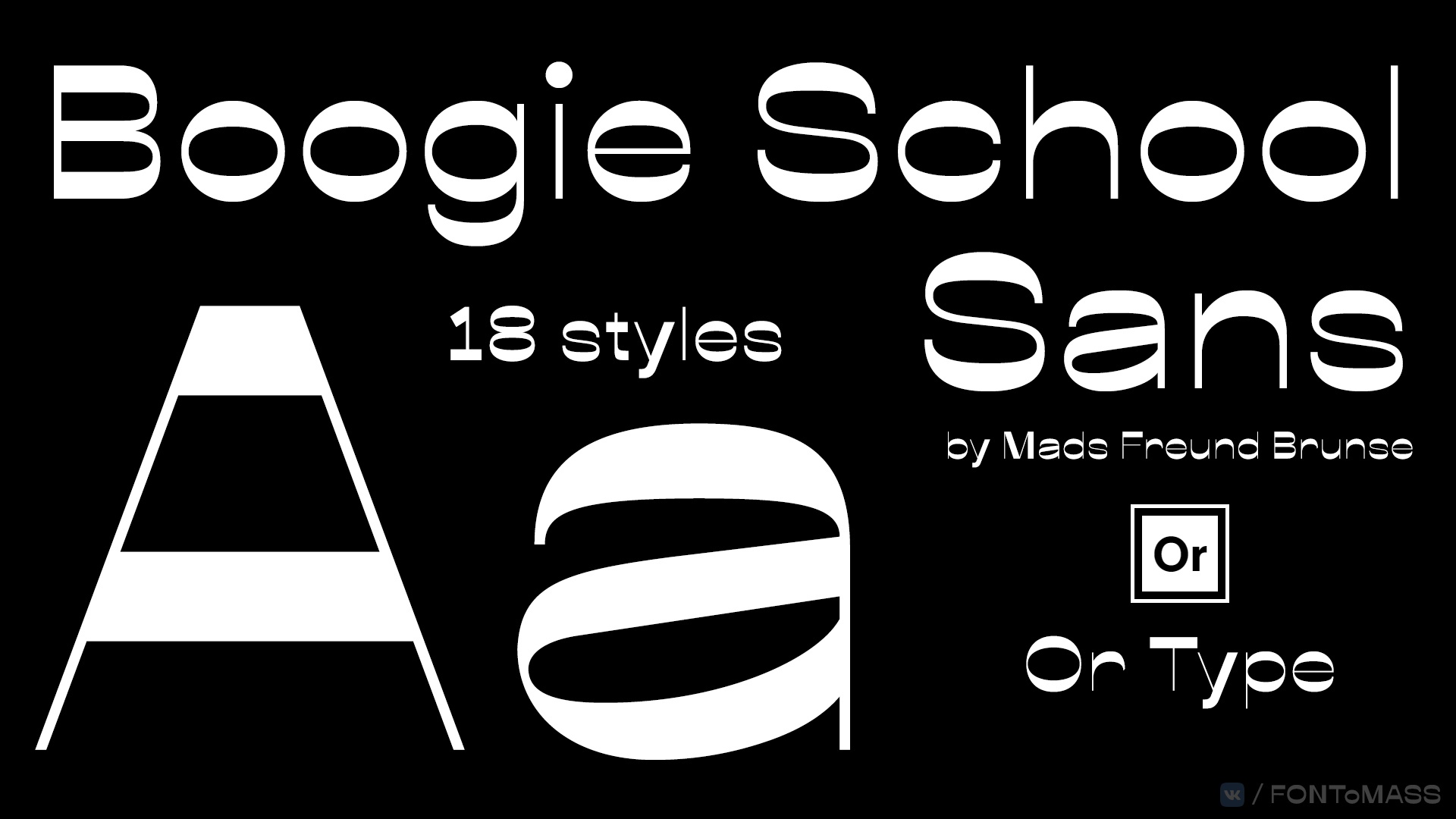
Boogie School Sans Font
Boogie School Sans Font is perfect for music education programs, dance studio branding, creative arts schools, fun learning platforms, youth entertainment materials, energetic educational campaigns, rhythm-based teaching tools, interactive children's applications, musical theater promotions, and vibrant educational communications.
What makes Boogie School Sans Font so exciting is its dynamic embodiment of musical education and rhythmic learning that captures the joyful energy of creative education and the transformative power of music in learning through playfully designed typography. This rhythmically inspired typeface features bouncy letterforms with musical proportions and dance-influenced character variations that immediately convey fun, creativity, and the life-enhancing power of musical education. The font's energetic construction and educational aesthetic create an instant sense of learning excitement and creative engagement, making it ideal for projects that need to communicate educational fun, musical learning, and the transformative power of rhythm-based education to audiences seeking engaging educational experiences and meaningful creative learning opportunities.
The Boogie School Sans Font family typically includes multiple energetic weights and musical styles, often featuring light through bold variations along with rhythmically flowing italic versions and education-optimized alternatives. Music education font collections frequently offer additional creative elements such as musical symbols, rhythm ornaments, and educational decorations that enhance the learning-focused aesthetic and provide designers with comprehensive tools for creating genuinely engaging and educationally effective communications.
The educational nature of Boogie School Sans Font makes it particularly effective for targeting demographics that value creative learning and musical education in their children's educational development. Music educators and creative learning specialists will find this font especially valuable for materials that must establish immediate educational credibility while maintaining the fun factor essential for engaging young learners and music enthusiasts.
What sets Boogie School Sans Font apart is its ability to convey educational authority while maintaining the playfulness necessary for effective creative learning and musical education communication. This balanced characteristic makes it suitable for both formal music education applications and informal creative learning contexts where projecting educational competence and maintaining fun engagement must work together harmoniously.
Professional designers recognize that Boogie School Sans Font brings invaluable creative education credibility to projects across industries including music education, creative arts training, educational entertainment, and youth development programs. Its rhythmic character and educational appeal make it essential for organizations whose mission centers on combining learning with creativity, promoting musical education, and creating meaningful connections between educational excellence and creative expression.
The systematically crafted educational authenticity of Boogie School Sans Font ensures consistent creative learning messaging across all music education-focused communication applications while honoring the fundamental importance of fun and engagement in effective educational typography.